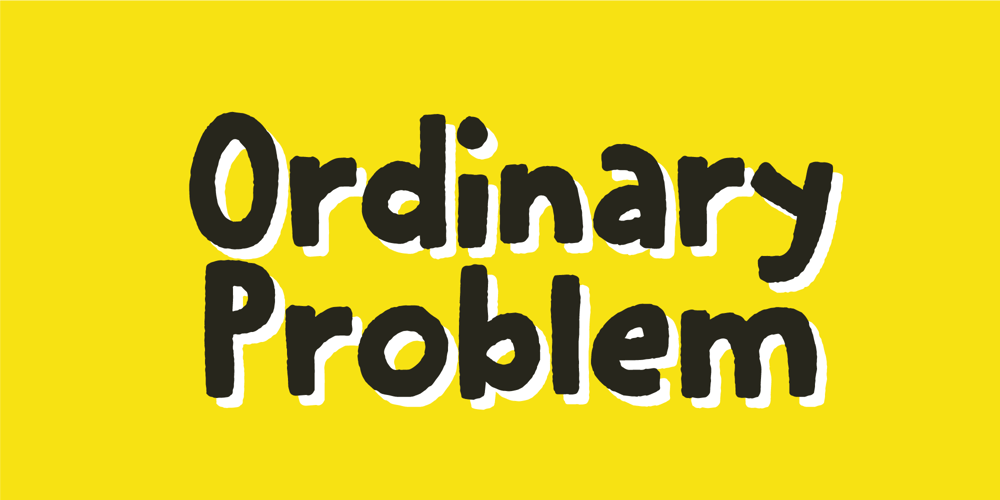
Ordinary Problem Font Family was designed by Jakob Fischer and published by PizzaDude.dk. Ordinary Problem contains 2 styles and family package options. This chunky and crunchy font is perfect for creating titles, illustrations and products that needs a realistic and organic handmade look.